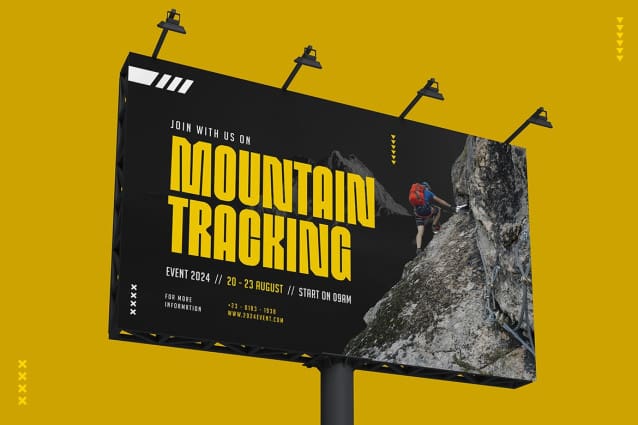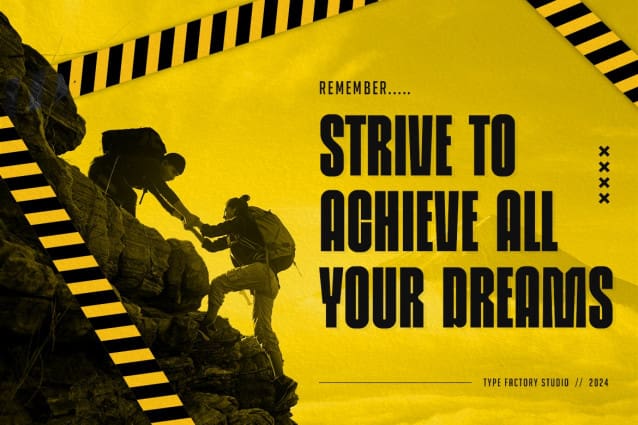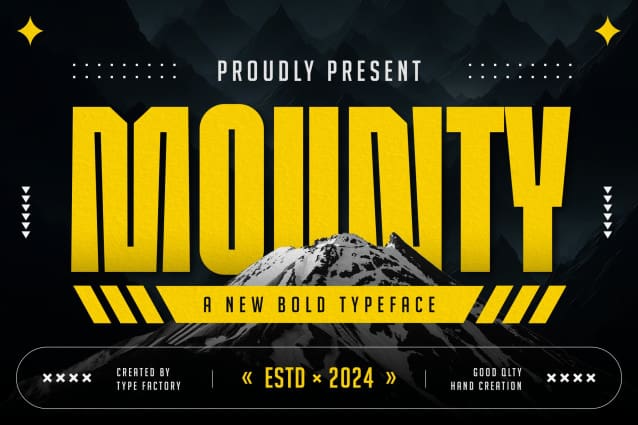
Mounty Font
Mounty Font is a bold, powerful and striking typeface designed to make a statement. With its bold, assertive letters, this font is perfect for headlines, posters, logos and branding projects that need to stand out. Mounty’s strong, modern aesthetic adds impact and clarity, ensuring your message is conveyed with authority. Whether for print or digital designs, Mounty’s boldness and versatility make it a great choice for projects that require a touch of strength and style.